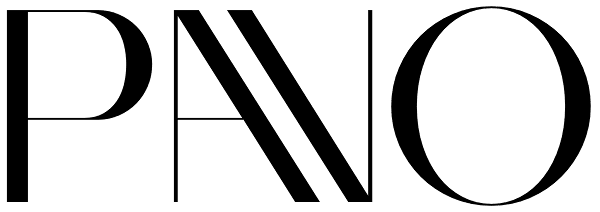
Pavo
Pavo is inspired by Herb Lubalin’s Avant Garde but is pushed to be what Avant Garde initially should have been: a Headline Typeface. Avant Garde was not intended to be used for copy text. This is the idea behind Pavo. Pavo is intended to be used as...